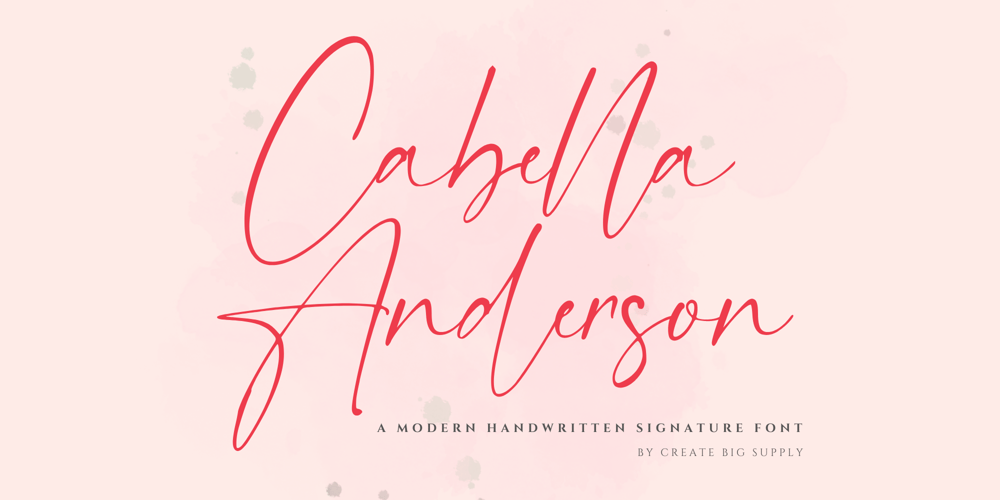
Cabella Anderson
Cabella Anderson font
Cabella Anderson Font Family was designed by Irpan Maulana and published by Create Big Supply. Cabella Anderson contains 1 styles and family package options. Experience the elegance and grace of Cabella Anderson, a sophisticated signature handwriting font that will elevate your designs to new heights. With its fluid strokes and contemporary style, Cabella Anderson brings a touch of refinement to any creative project.This versatile font features both uppercase and lowercase letters, offering you flexibility and creative freedom to craft captivating designs. Whether you’re designing logos, branding materials, invitations, or any other project that requires a personalized touch, Cabella Anderson will leave a lasting impression.In addition to its stylish aesthetics, Cabella Anderson is designed to be practical and user-friendly. It includes a wide range of numbers and punctuations, ensuring seamless integration of numerical information into your designs. The font also supports multiple languages, enabling you to communicate effectively with a global audience.Cabella Anderson is equipped with PUA (Private Use Area) encoding, allowing you to access special characters, ligatures, and alternate letterforms. This feature empowers you to add unique flourishes and customize your typography, giving your designs a distinct and memorable look.Visit our store on Creative Market to unlock the full potential of Cabella Anderson. Download this exquisite signature handwriting font and let your creativity soar as you create stunning designs that make a statement.